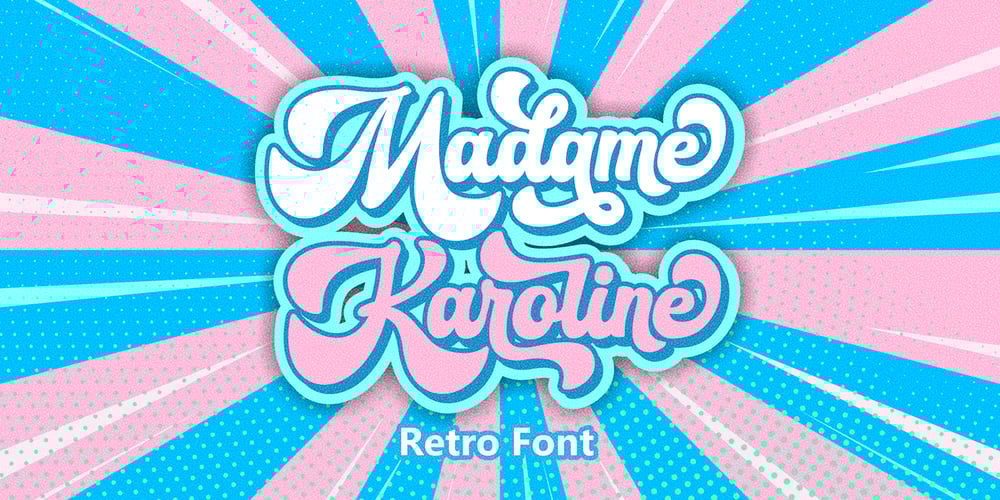
Madame Karoline Font Family was designed by Raditya Putra Pratama and published by Raditya Type. Madame Karoline contains 1 styles and family package options. This time, I would like to introduce a bold typeface called “Madame Karoline”, which has an attractive retro atmosphere. This font looks interesting too, as I’ve added some alternatives that you can use. Don’t forget to add an extruded style to make your design look more appealing.This font is suitable for those who want a design that shows an old-school side but still relates to a modern look that is attractive . No problem if you have experience using this font in your designs. Make this font one of your computer’s font collection.